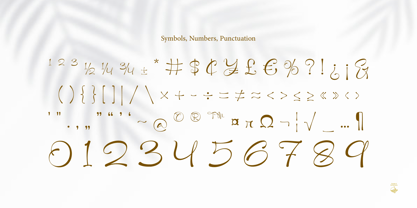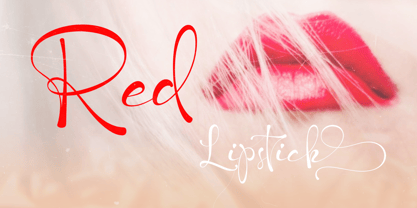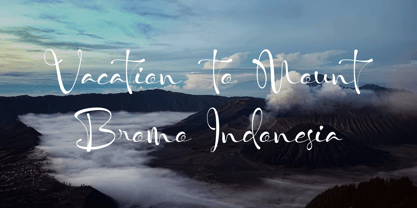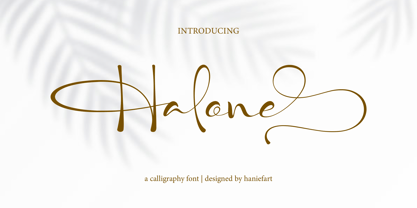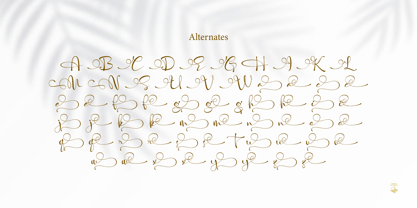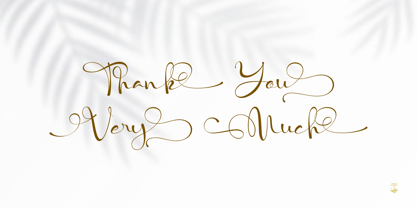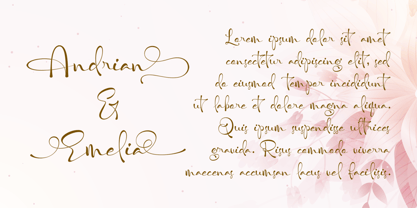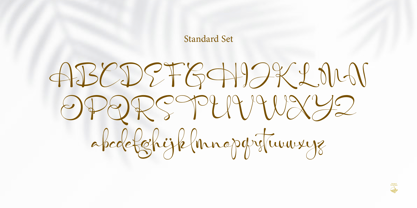
Halone
by Haniefart
The Halone Font Family was designed by Hanif Maulazi and published by Haniefart. Halone contains 1 styles.
Halone is a handwritten typeface that exudes a stunning and beautiful charm that can adapt to seamlessly enrich a variety of designs, from eye-catching logos and stylish apparel designs to eye-catching magazine covers and refined invitation cards. With its blend of elegance and calming warmth, Halone gives your client’s projects the extra touch they need to stand out from the crowd. Its allure adds a creative spark to bold headlines or eye-catching flyers, transforming any endeavor into an artistic masterpiece. Let Halone Font sprinkle its magic into your work, evolving each project into an expressive work of art.
Designers: Hanif Maulazi
Publisher: Haniefart
Foundry: Haniefart
Design Owner: Haniefart